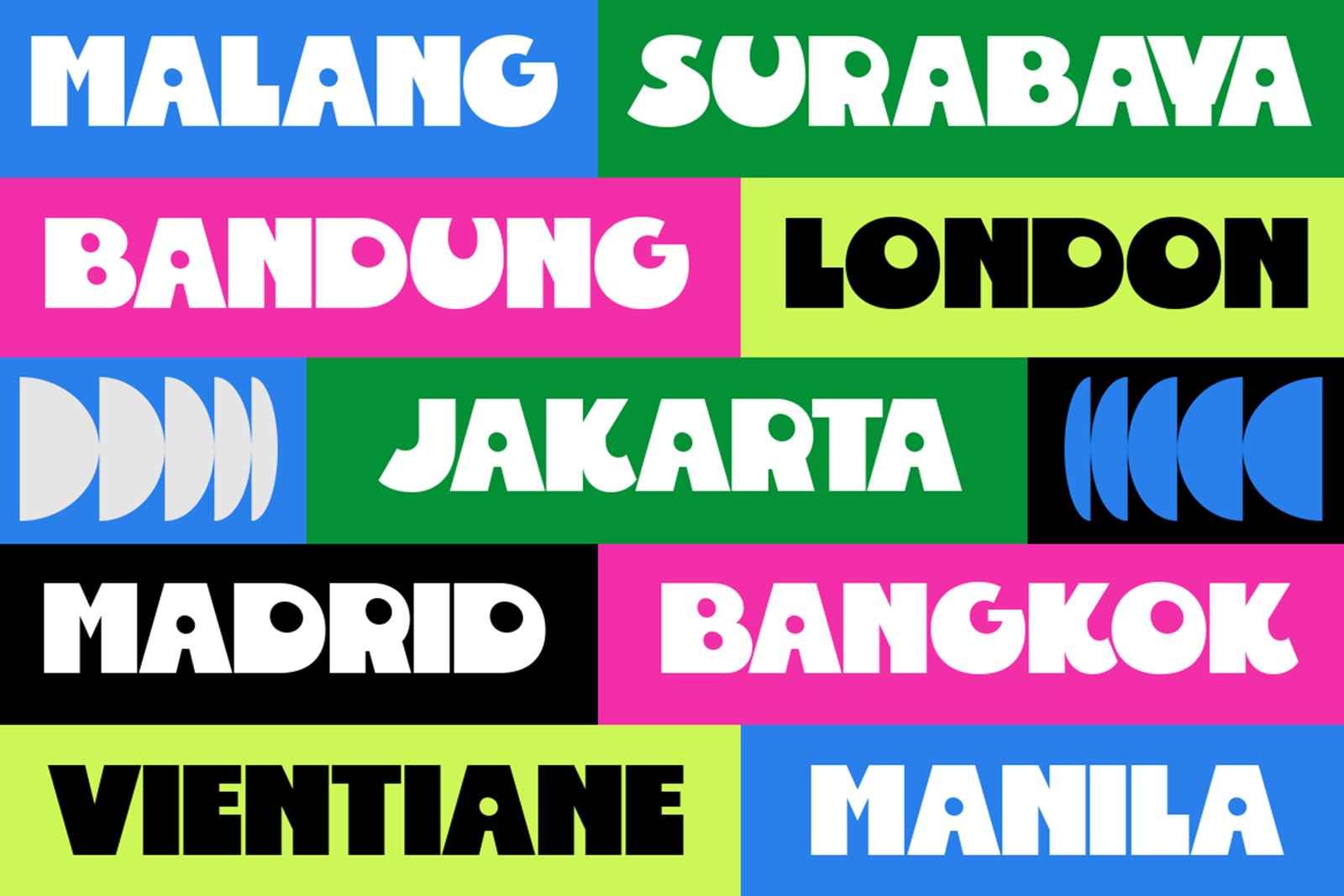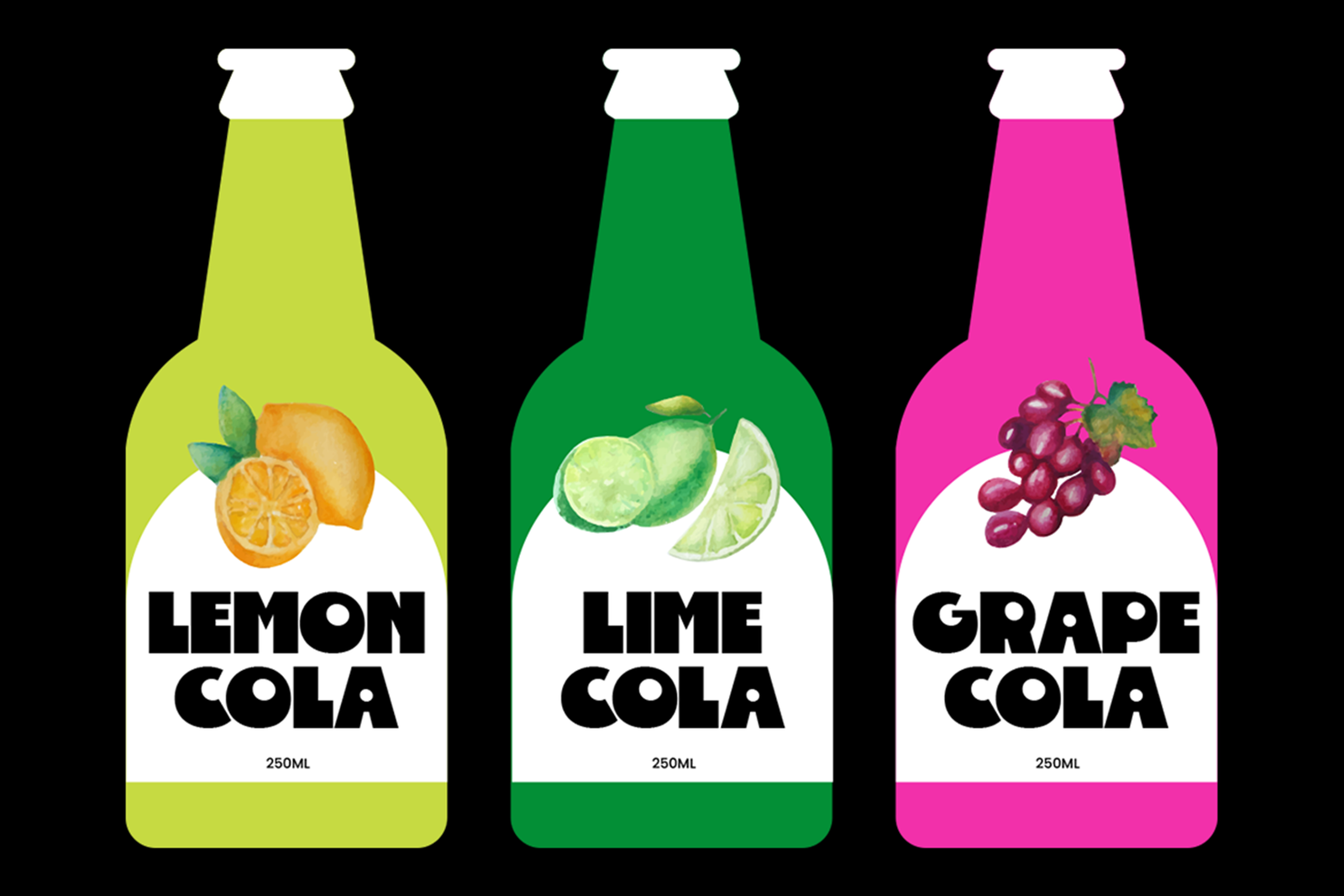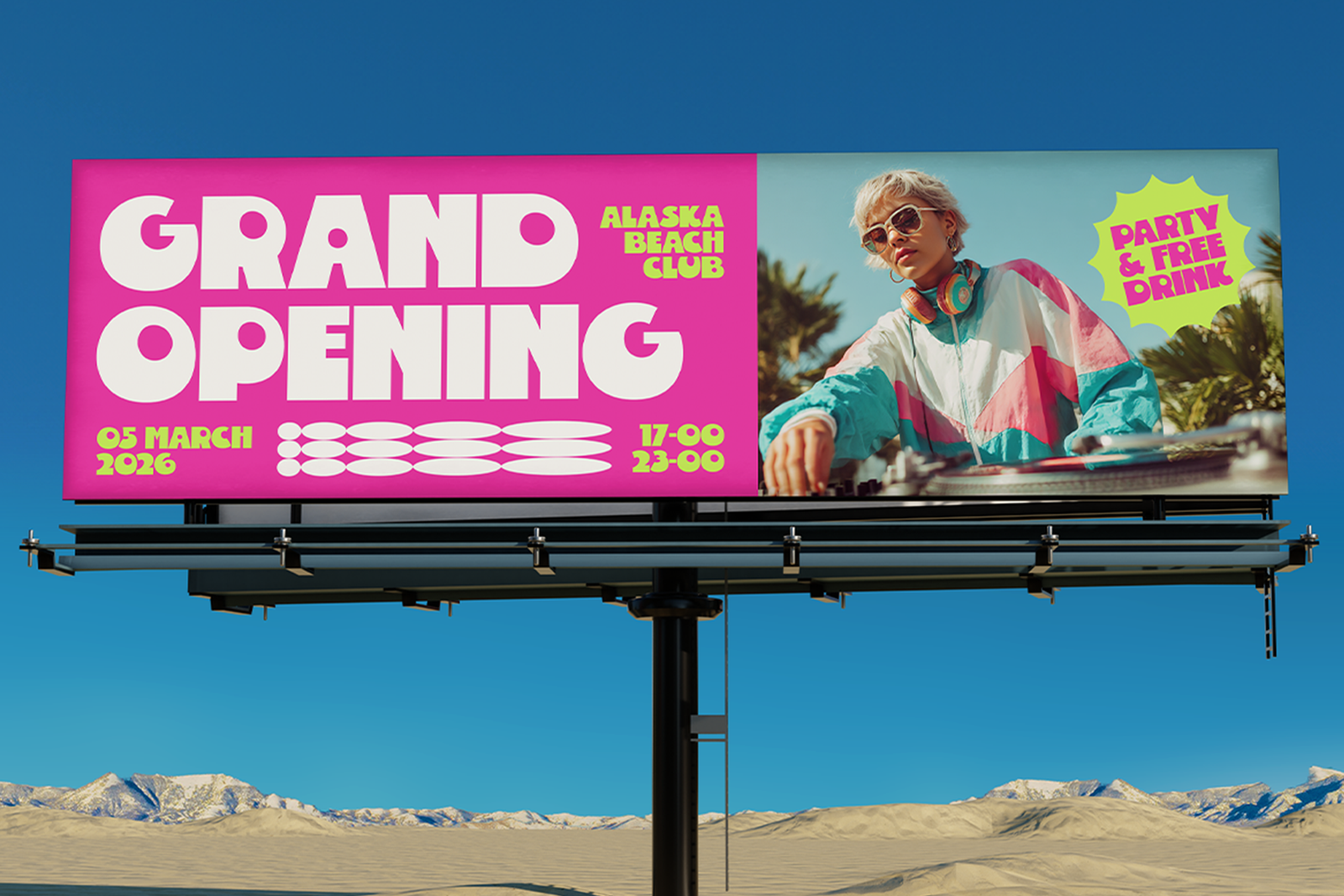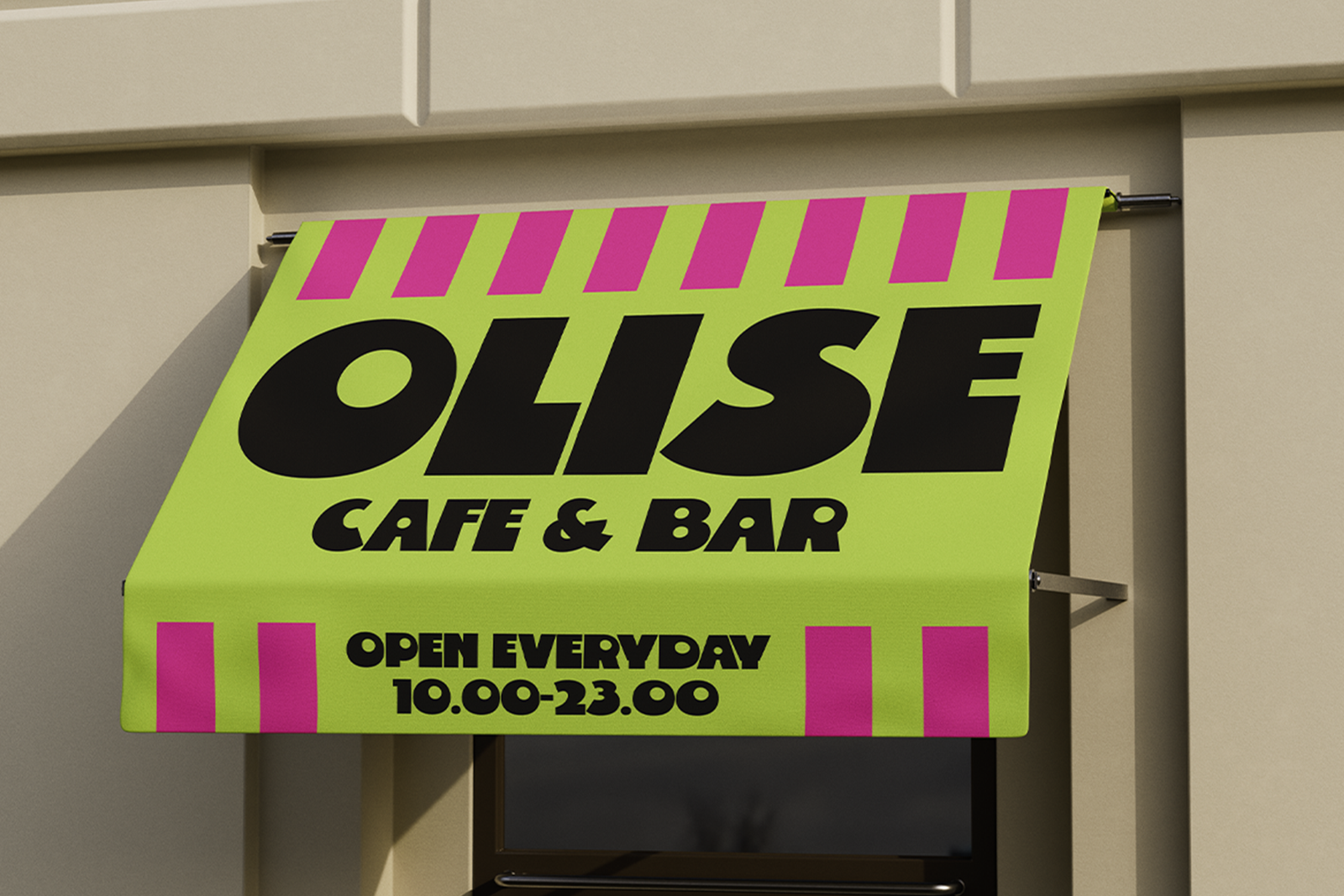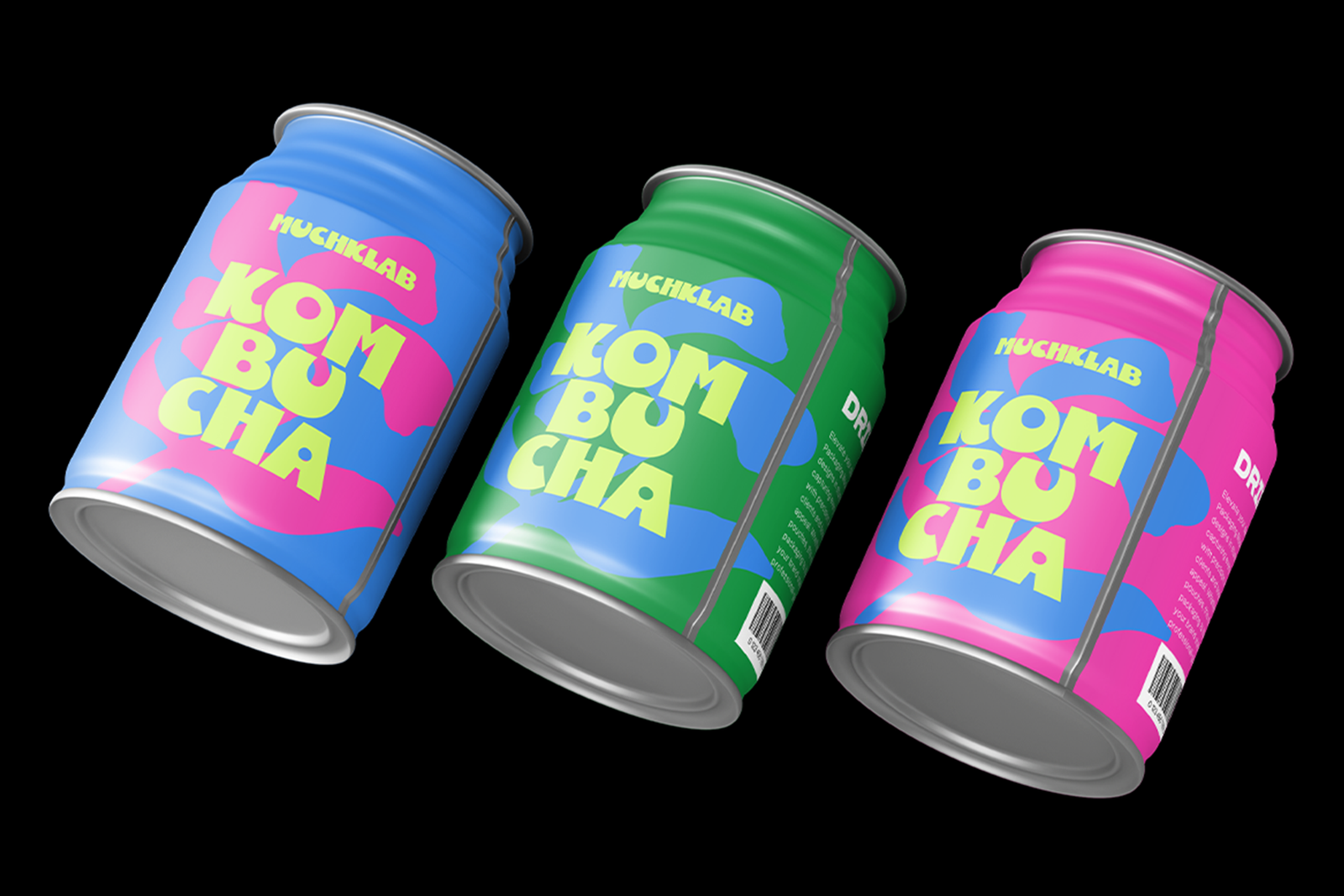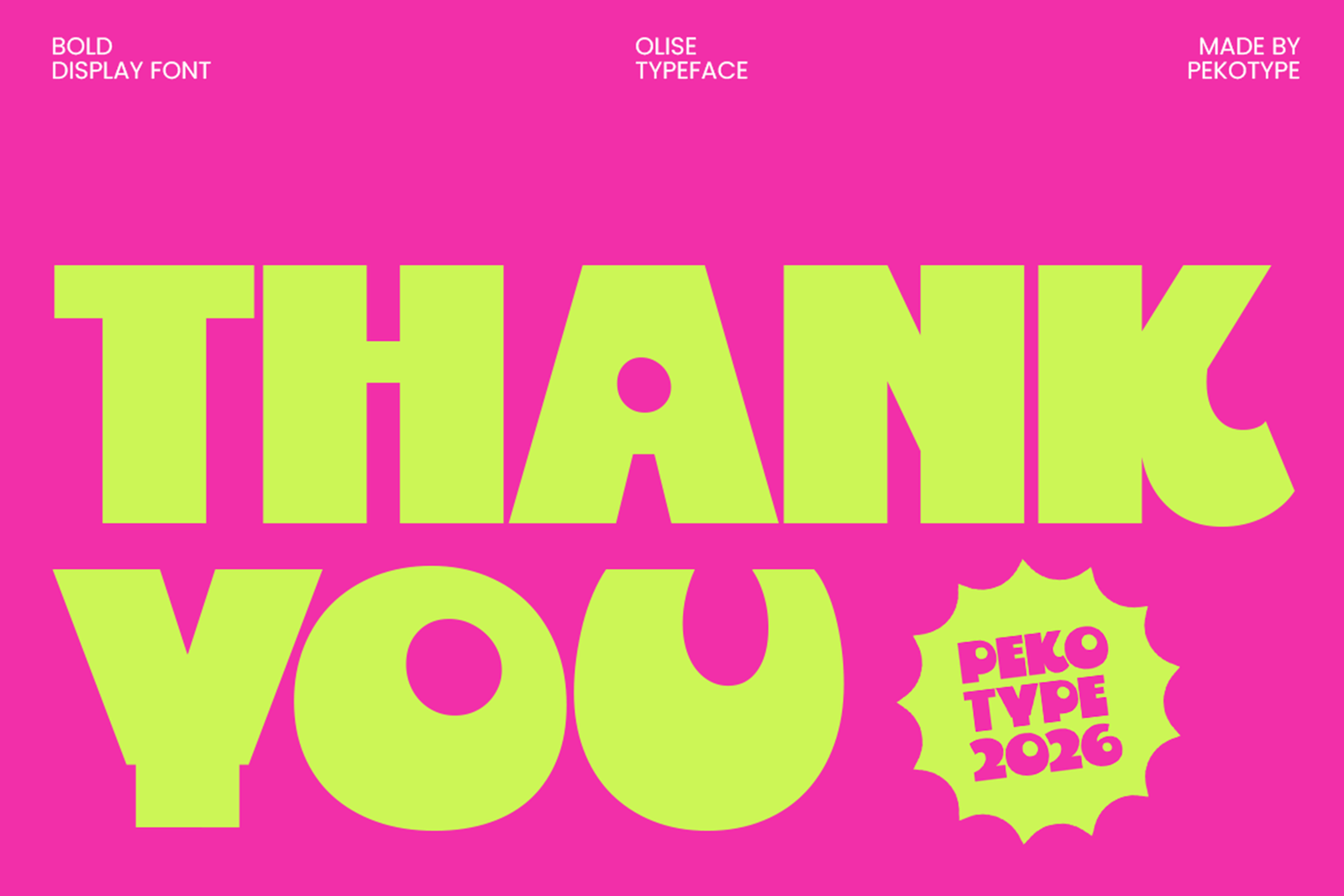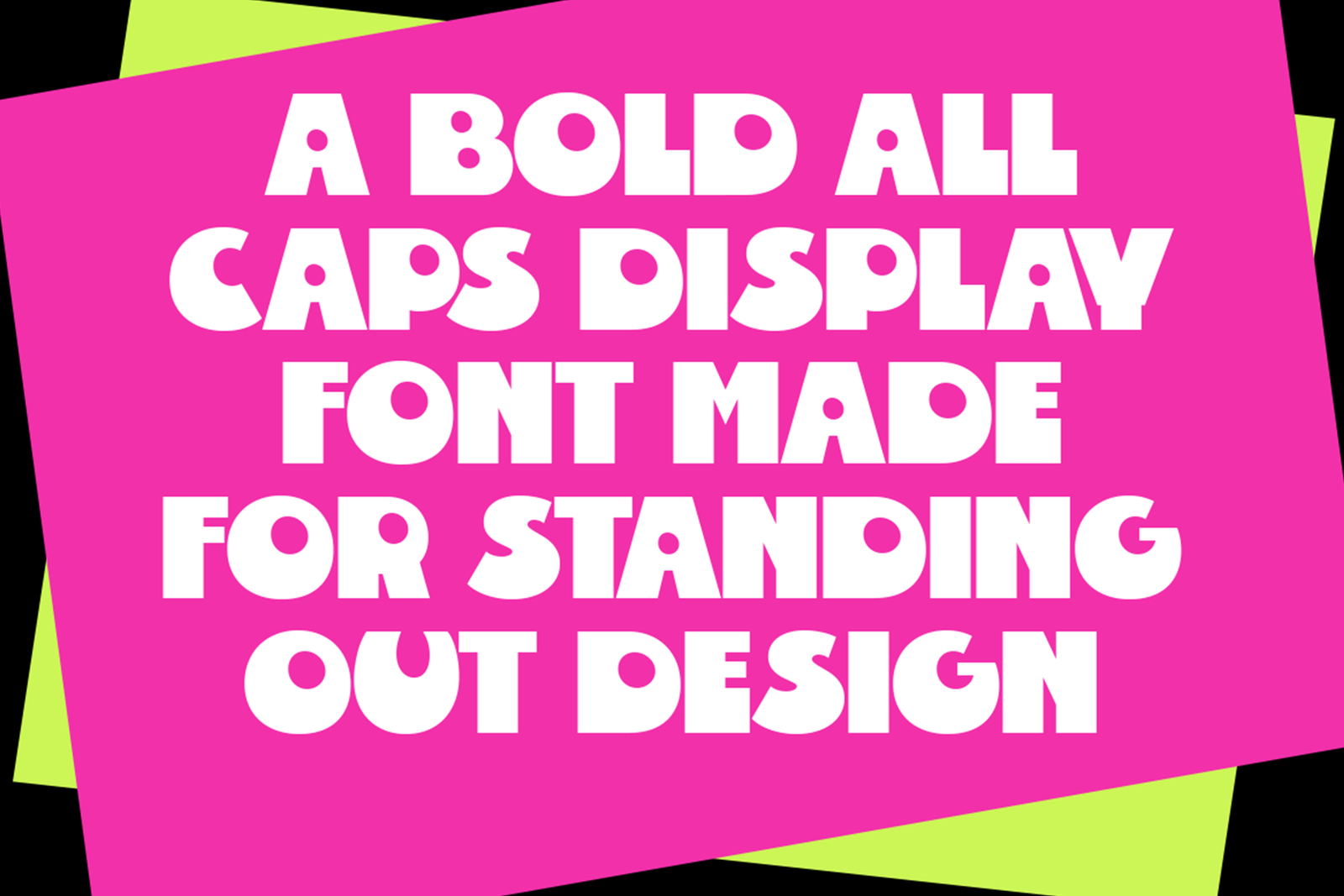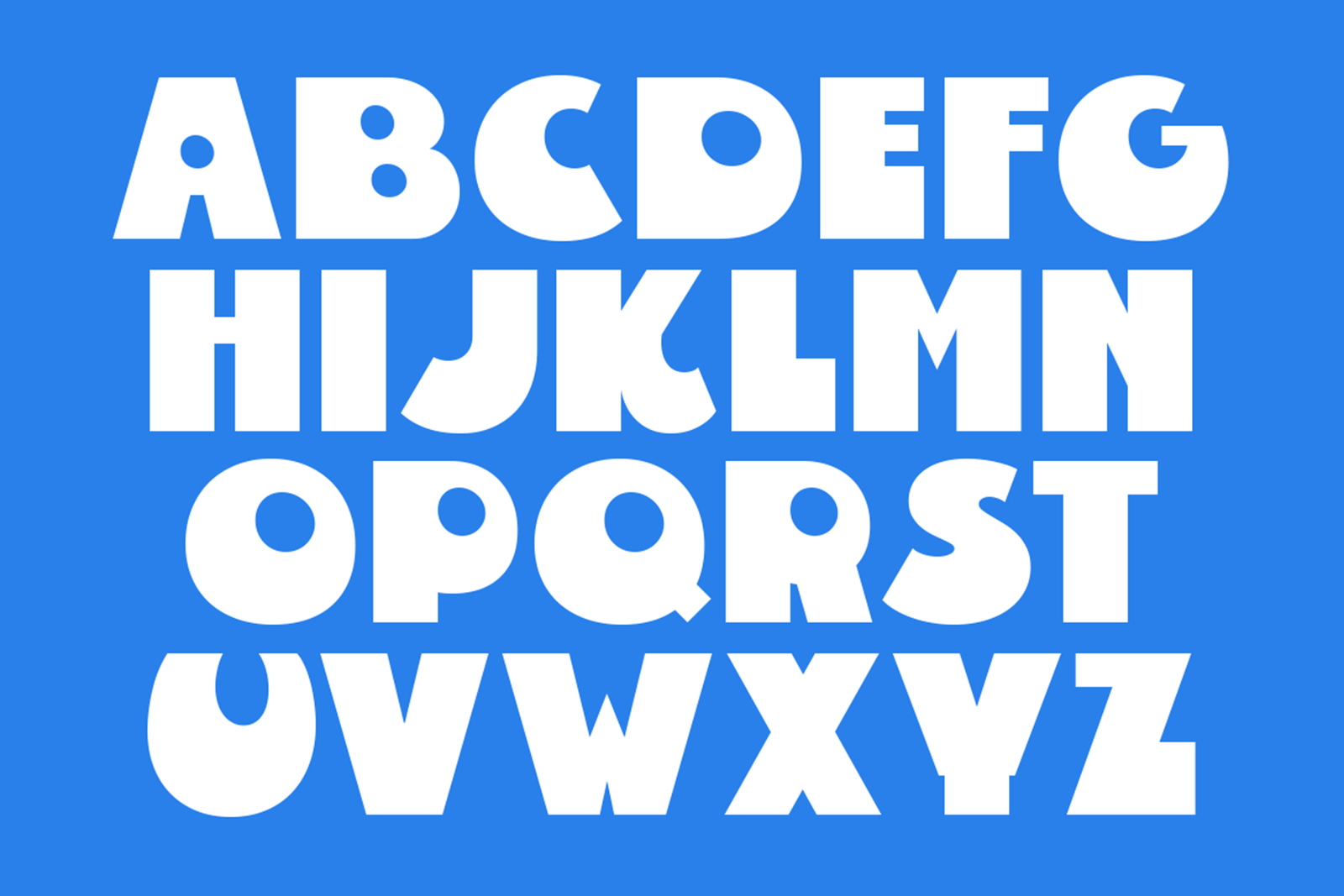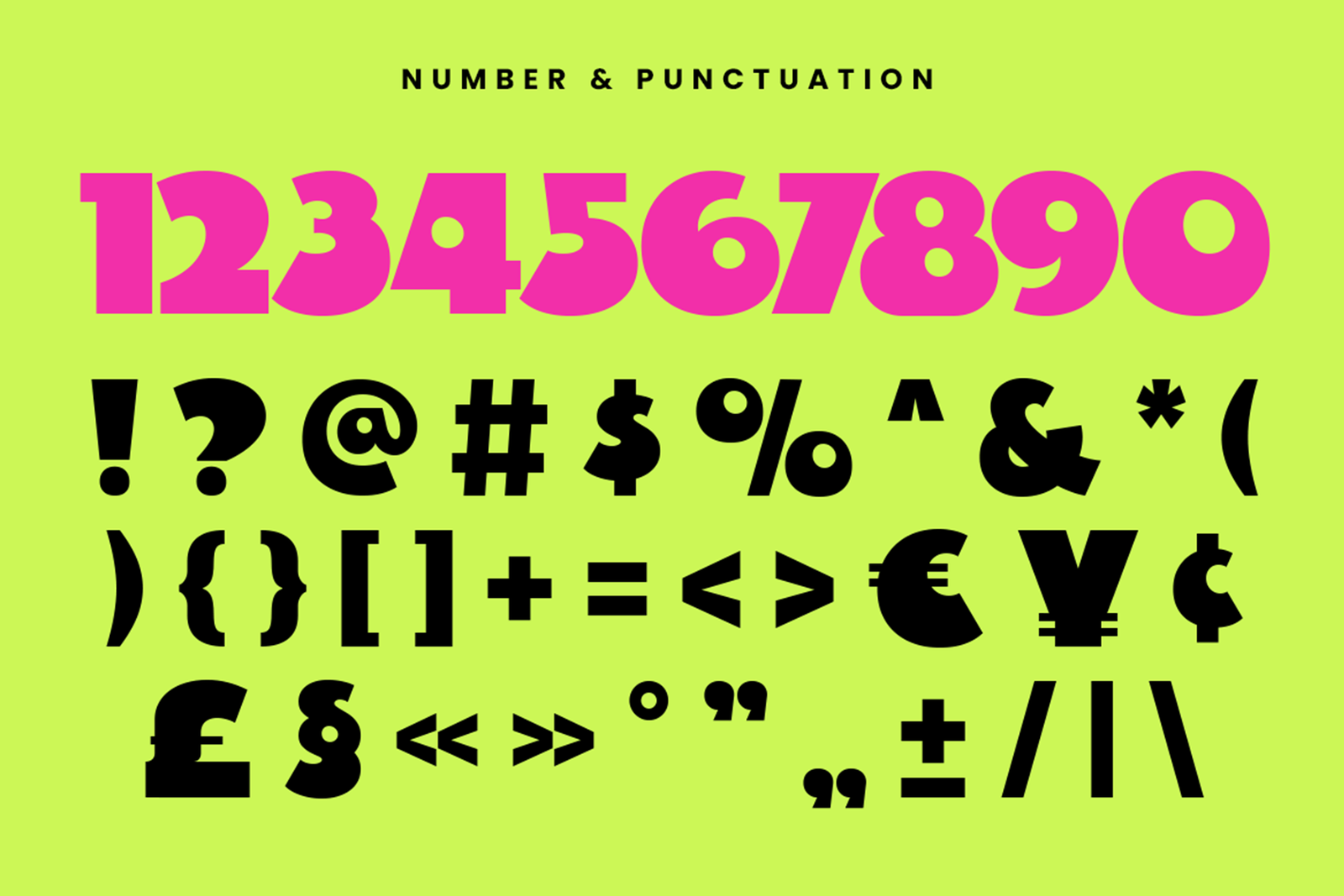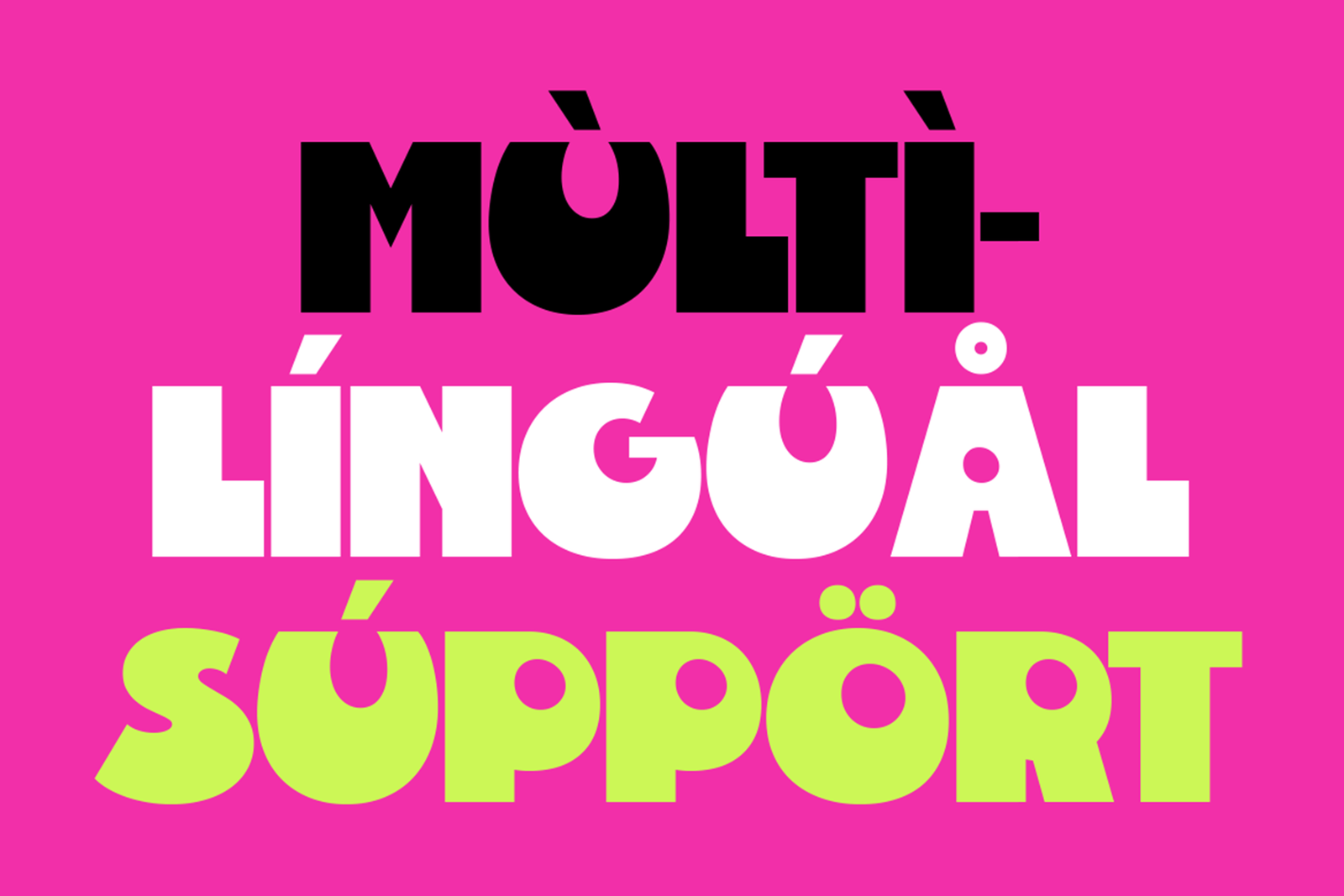
OLISE Font is a bold all caps display typeface with chunky geometric shapes and a playful style. Perfect for logos, branding, posters, packaging, and promotions.
OLISE Font is a bold all caps display typeface designed to bring a strong, playful, and energetic personality to modern creative projects. Its chunky letterforms, compact structure, and clean geometric shapes create a powerful visual impact while keeping the overall style friendly, readable, and easy to notice. These sturdy shapes give short text a confident presence in different layouts across print materials, digital campaigns, and websites. The bold proportions make OLTSE especially useful for headlines, logos, and short messages that need to stand out.
This versatile font works perfectly for branding, posters, packaging, signage, social media graphics, advertisements, product labels, and event promotions. It is also a great fit for food and beverage brands, cafés, retail campaigns, entertainment projects, streetwear, and colorful lifestyle visuals. Whether you are creating a striking logo, promotional artwork, product packaging, or a bold social media campaign, OLTSE Font helps your design feel modern, confident, and memorable. With uppercase characters, numbers, symbols, punctuation, and multilingual support, this typeface provides flexibility for various creative needs. Choose OLTSE Font to add a bold, contemporary, and eye-catching character to your next design project.